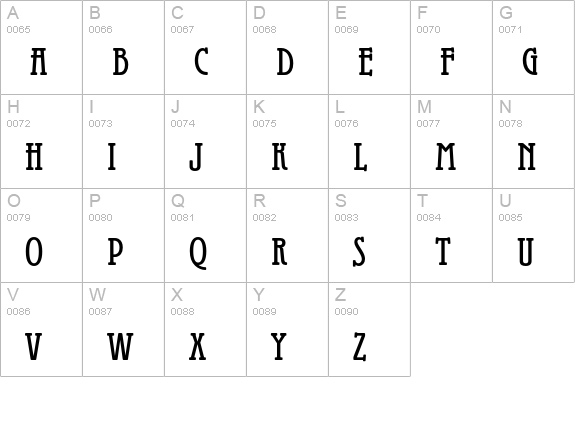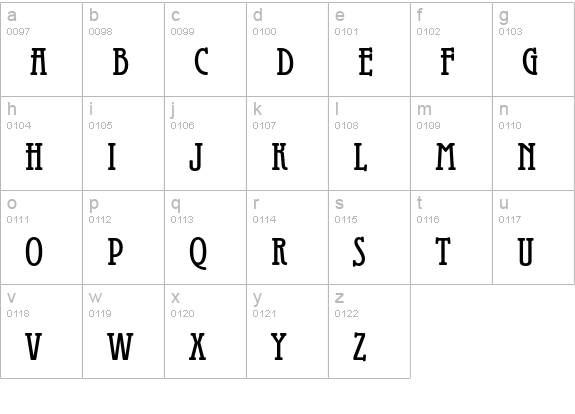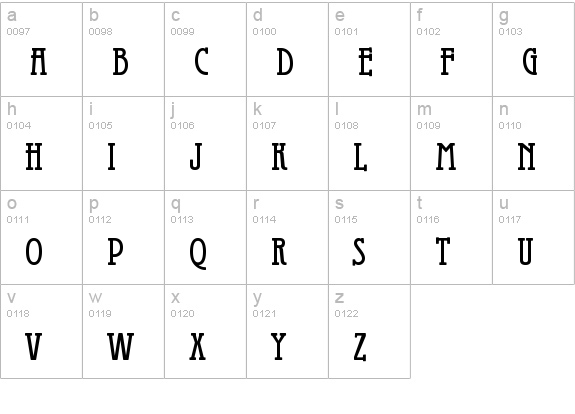
GaladrielEF Font Details
Introducing GaladrielEF, a captivating and enchanting font that will transport you to a world of fantasy and imagination. With its elegant and graceful letterforms, GaladrielEF embodies the ethereal beauty and magical allure of the Elven realms. This font effortlessly blends traditional calligraphy with a modern twist, resulting in a truly unique and timeless design. Each letter is meticulously crafted, showcasing intricate details and delicate curves, reminiscent of the delicate petals of Elven flowers. GaladrielEF is not only visually stunning, but it also offers versatility and readability, making it perfect for a wide range of creative projects. Whether you're designing wedding invitations, crafting a logo for a high-end brand, or creating beautiful typographic artwork, GaladrielEF will elevate your designs to a whole new level of elegance and sophistication. What makes GaladrielEF even more remarkable is that it is freely available to download at FontsMarket.com. Yes, you heard it right! This captivating font can be yours without any cost, allowing you to unleash your creativity without any limitations. So, why wait? Dive into the enchanting world of GaladrielEF and let your imagination soar. Download this exquisite font today and embark on a journey where beauty and magic intertwine seamlessly in every letter and word.